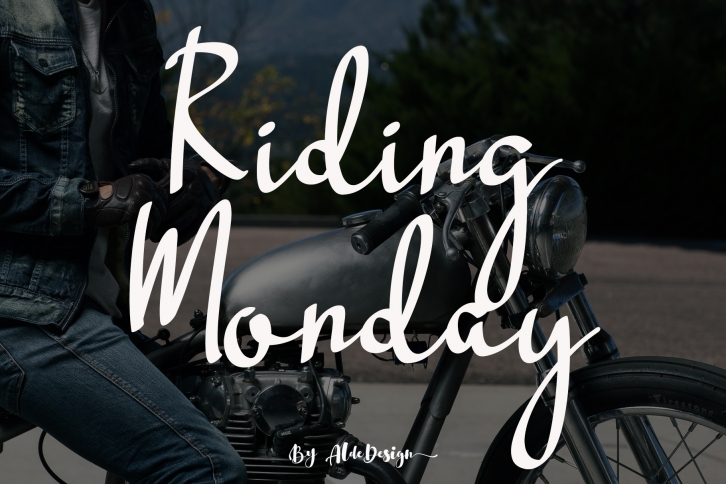
Riding Monday is a beautiful font that was designed by aldedesign. It's a great choice for designers and creatives who need such a font. It was released on February 17, 2019 and the file size is 17.54 MB. Riding Monday may give a more youthful, expressive and casual look to your project. It is a very beautiful, refined, elegant, and high-quality font.